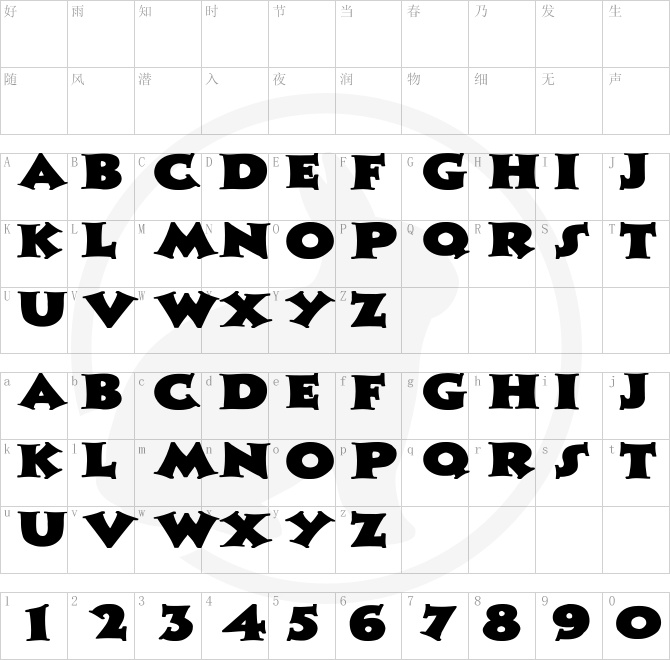
- Font Name:Zaleski Wd bold
Zaleski-Wd-Bold.ttf is a very beautiful artistic font, Zaleski-Wd-Bold.ttf is widely used in the design and printing of various books and pictures,Zaleski-Wd-Bold.ttf has a strong visual impact,Zaleski-Wd-Bold.ttf is a commonly used font in newspapers, magazines and books, and is used in posters, e-commerce Poster design, store design, logo design, font design and other fields.Zaleski-Wd-Bold.